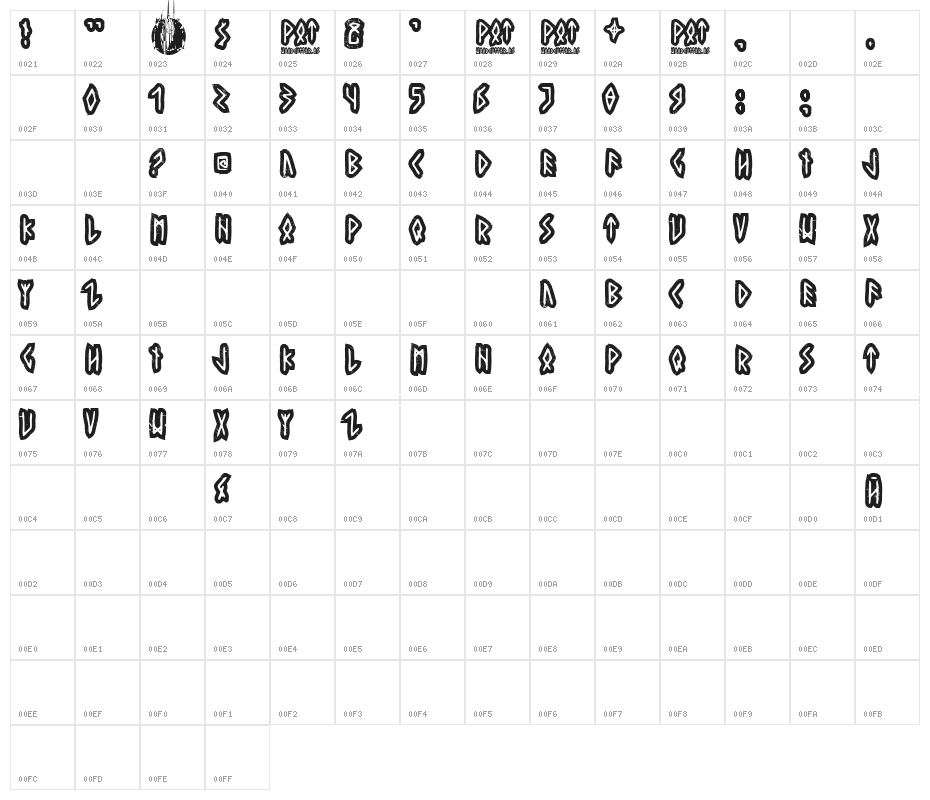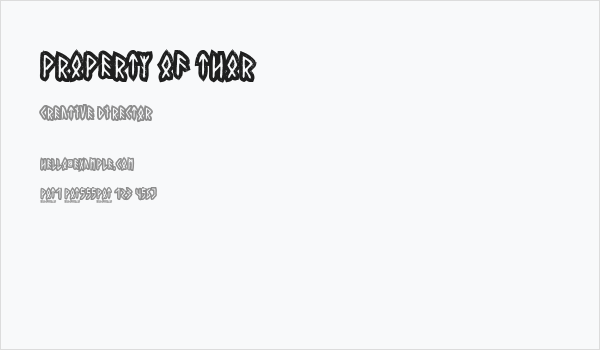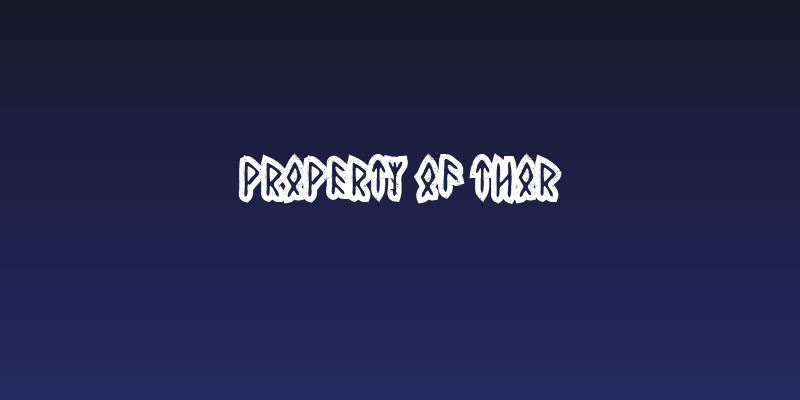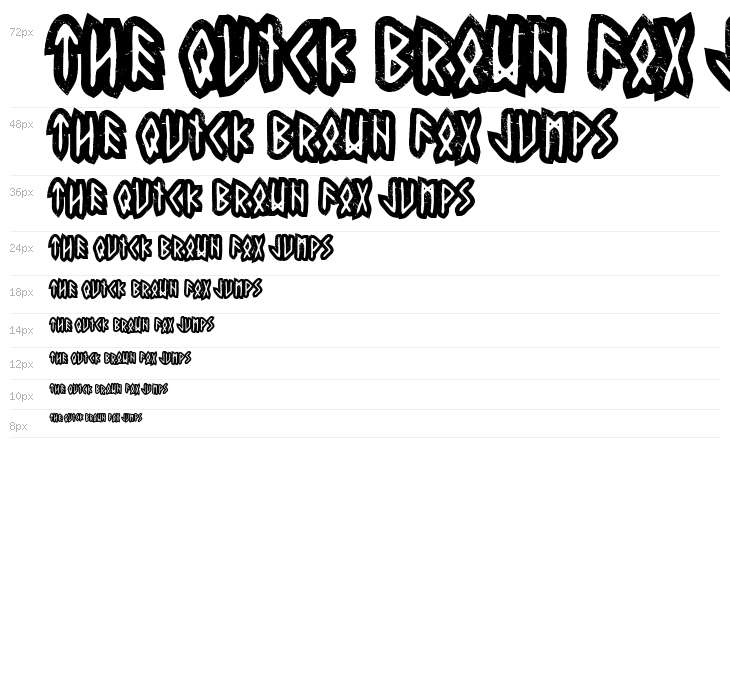
Property of Thor Font
Property of Thor Description
This font features a bold, rugged style with a distressed texture that gives it a gritty, hand-drawn appearance. The characters are outlined with a thick, uneven stroke, adding to its raw and edgy aesthetic. The uppercase and lowercase letters maintain a consistent style, with angular, sharp edges and a slightly condensed form. The numbers and special characters follow the same design principles, ensuring uniformity across the set. This font's unique style is reminiscent of graffiti or street art, making it stand out with its bold presence.
Overall StyleUrban, Edgy, Graffiti
Proposed ProjectsIdeal for urban-themed designs, posters, album covers, and branding that requires a bold, edgy look.